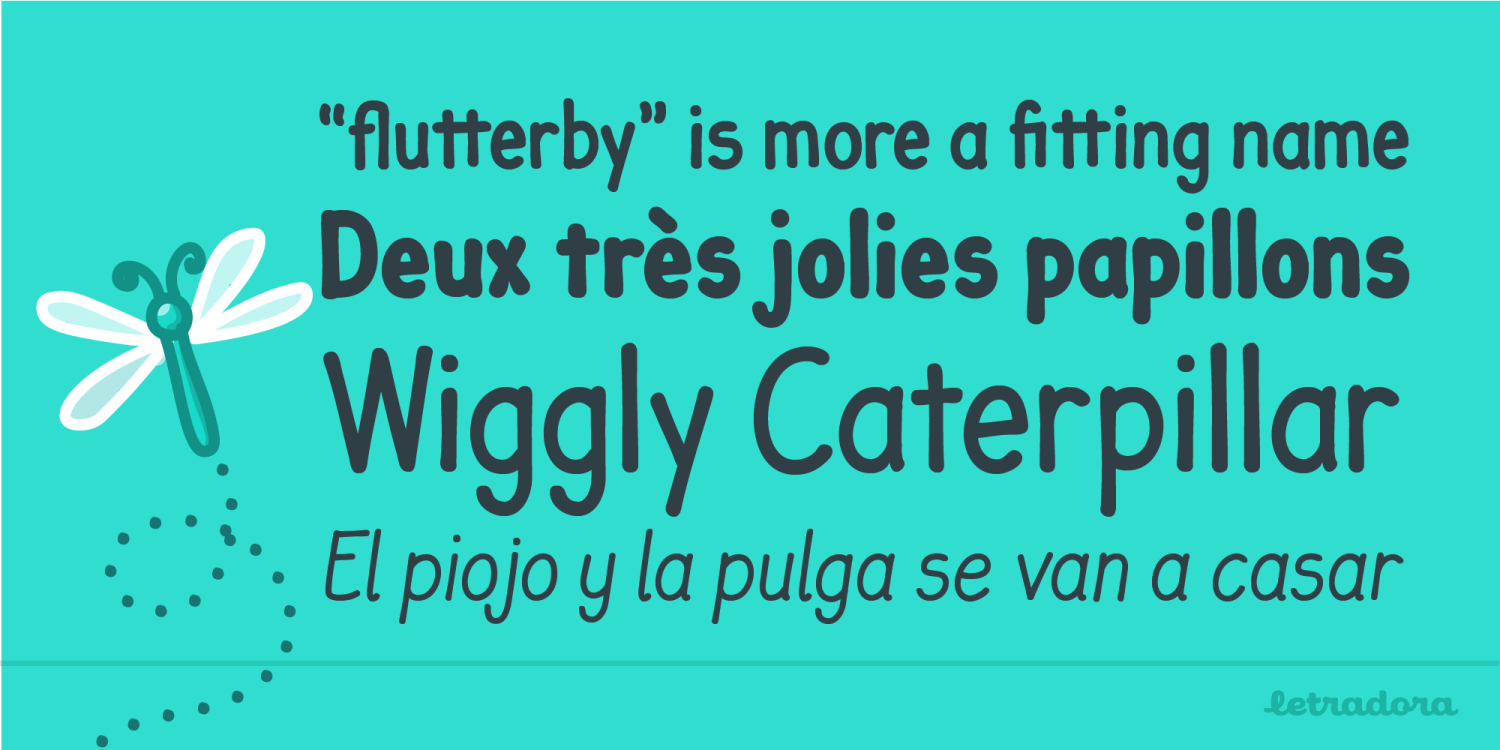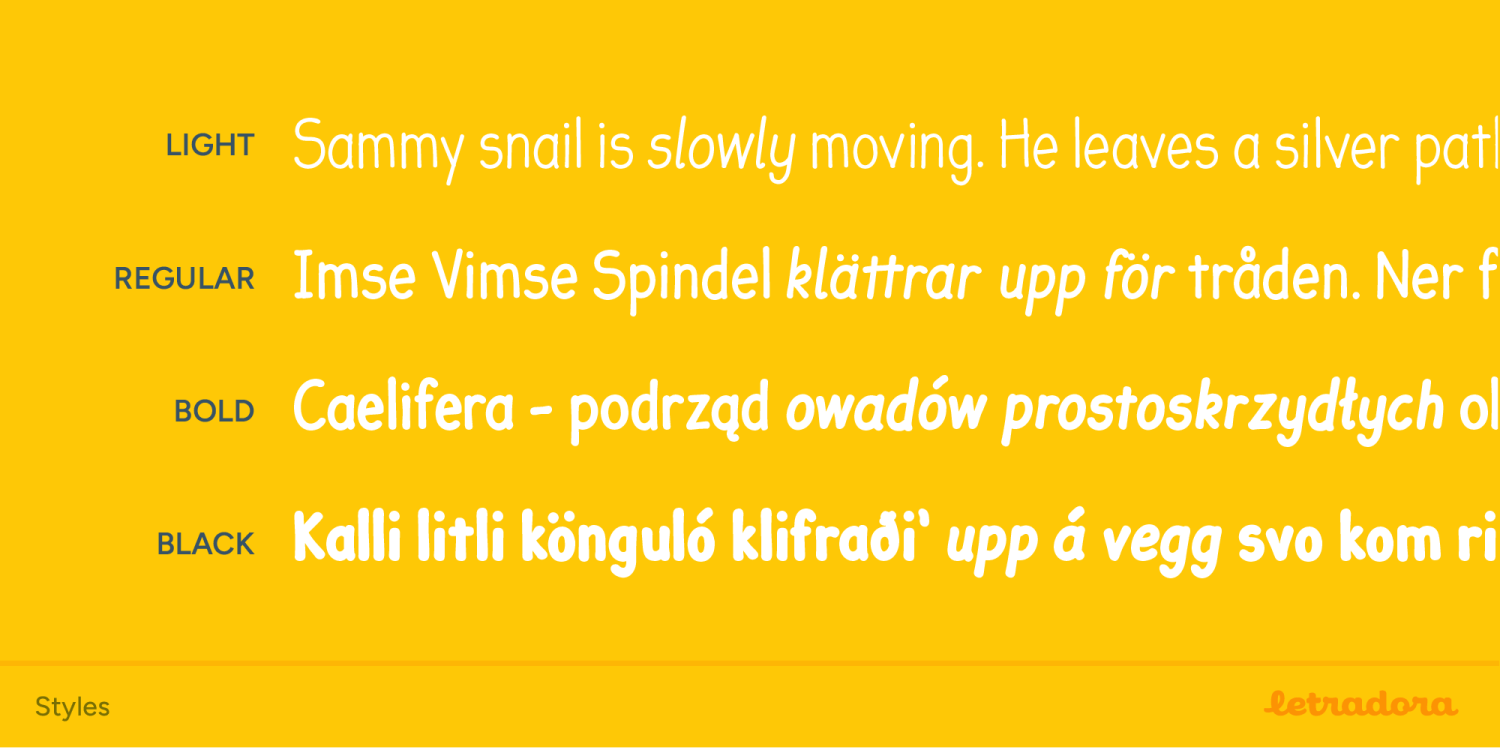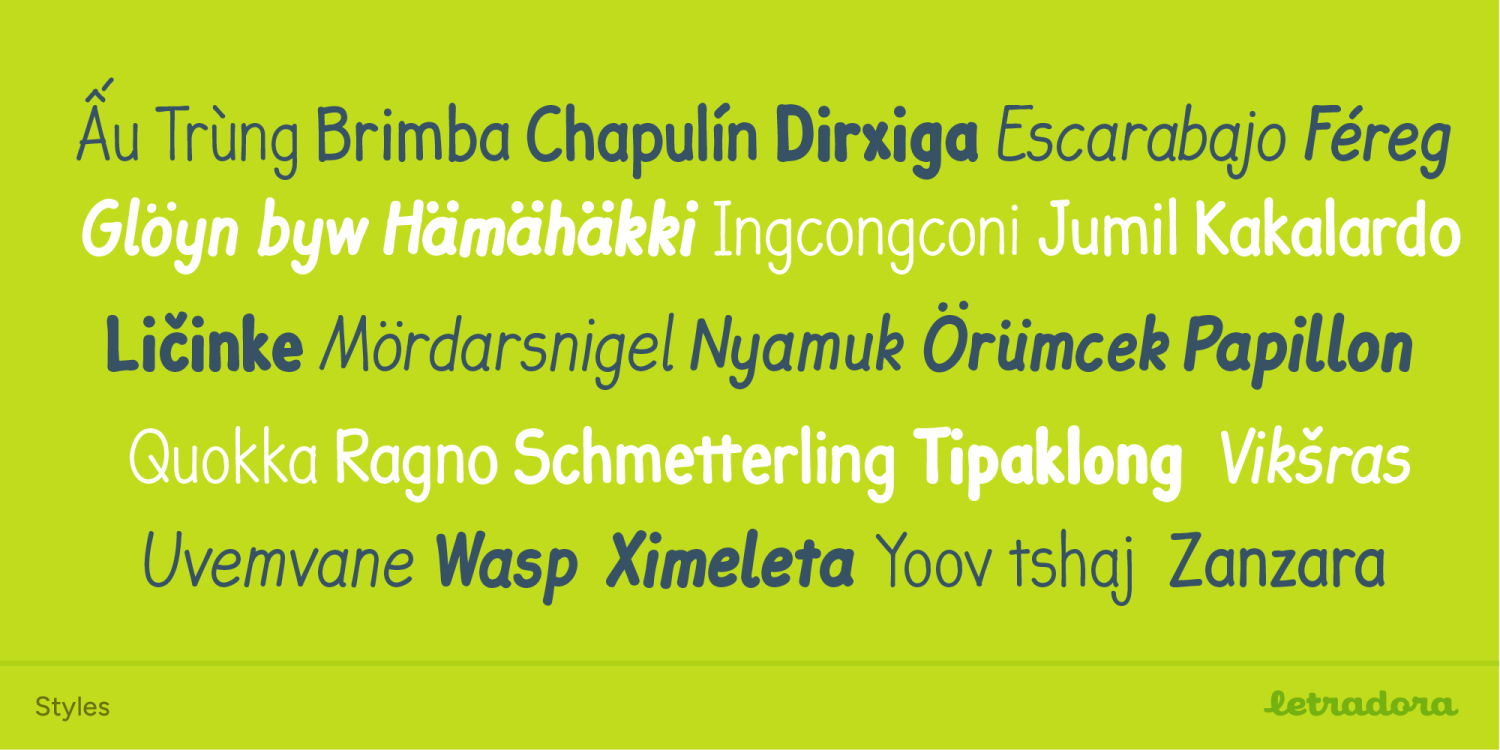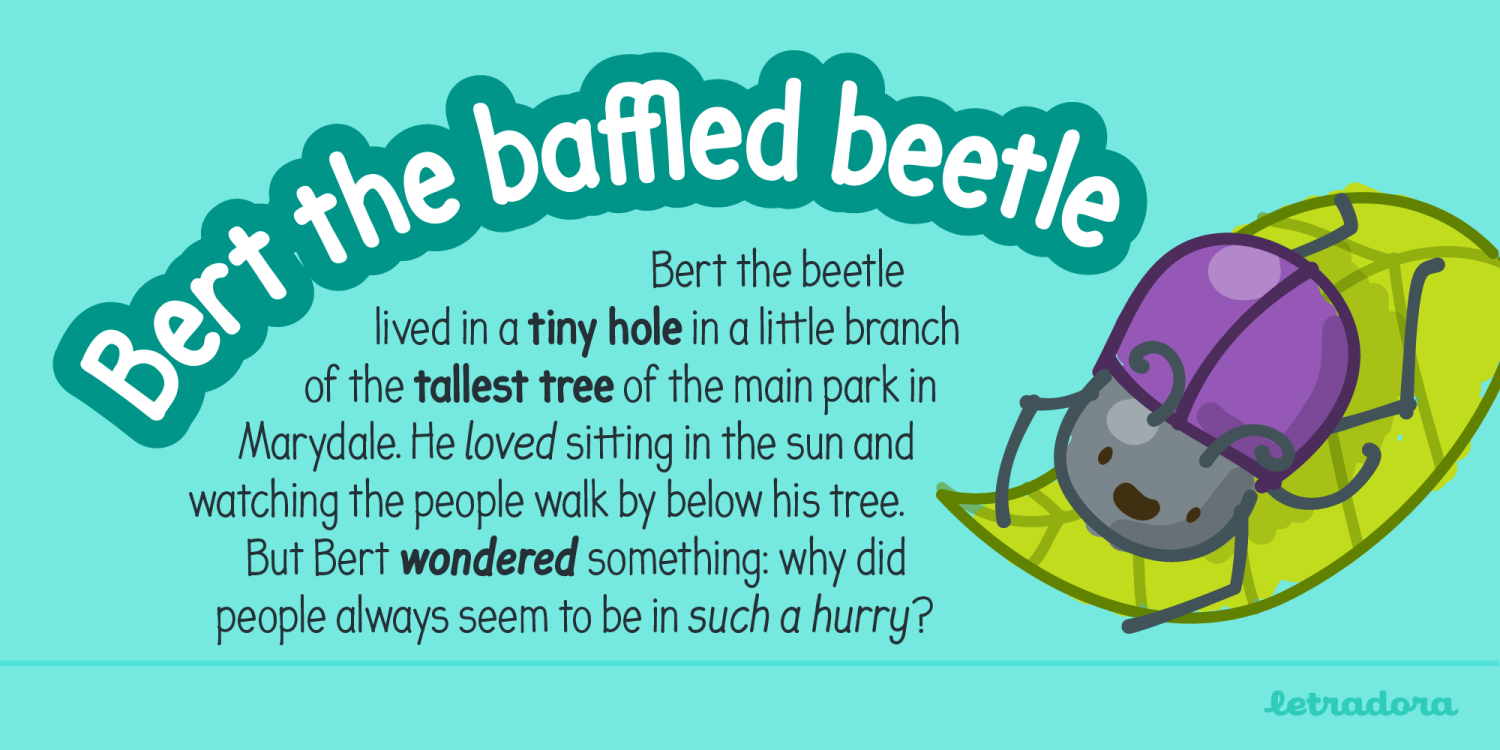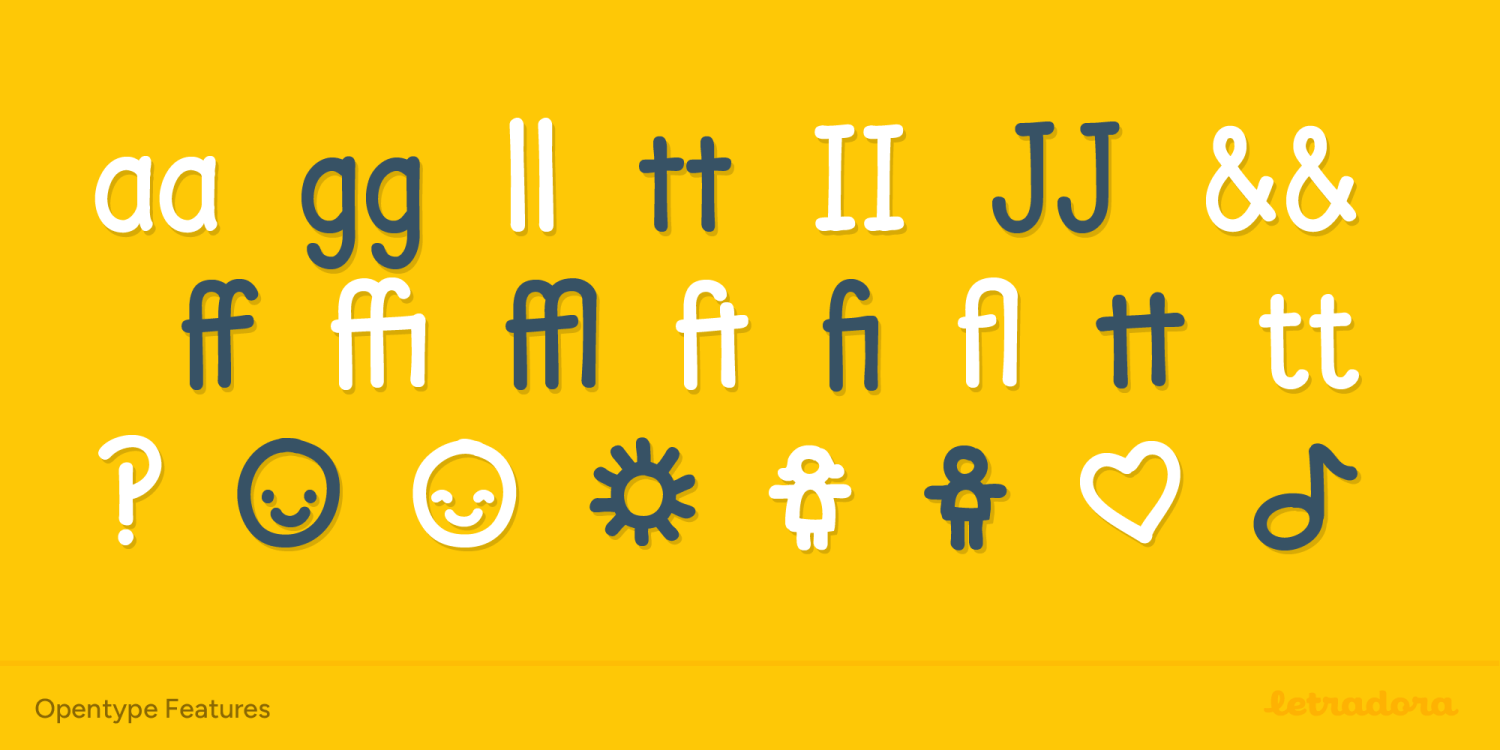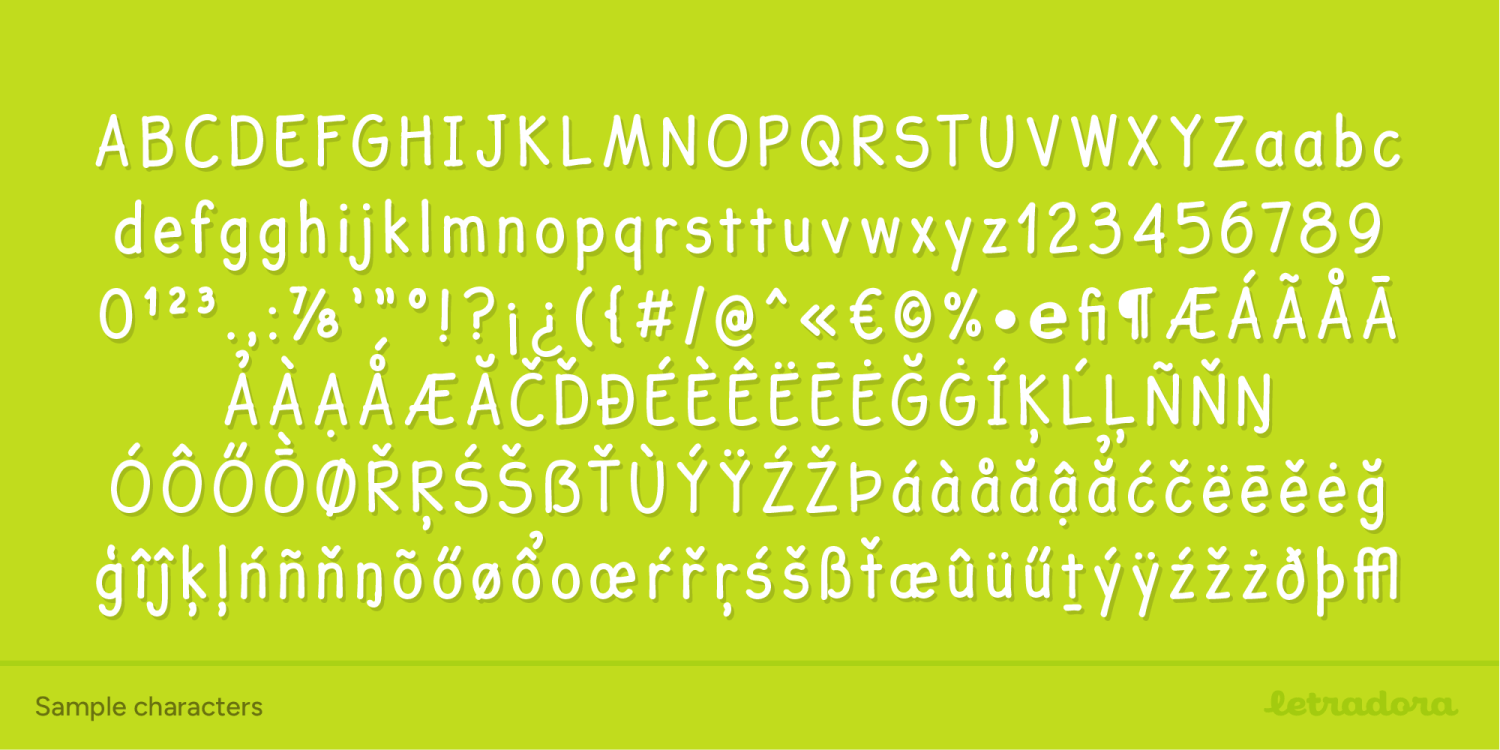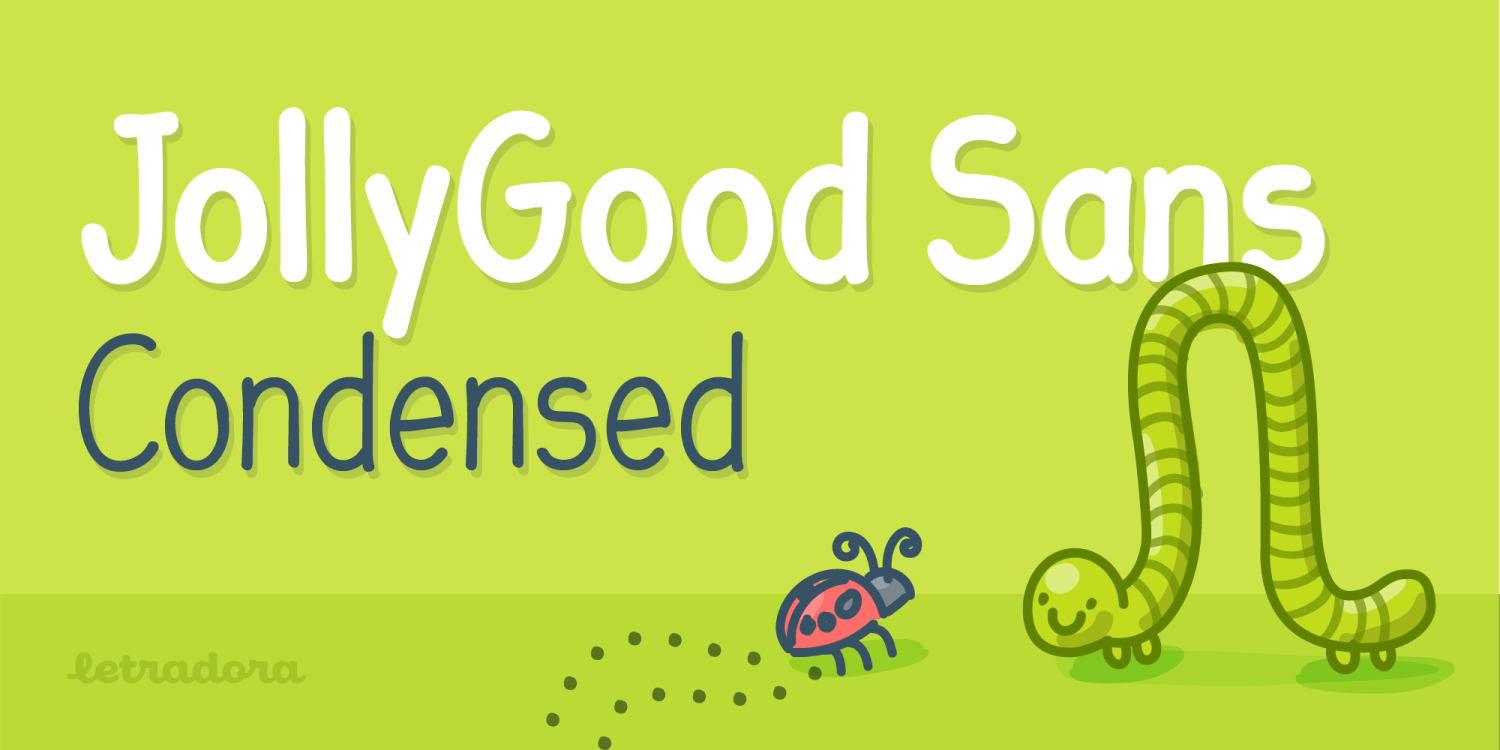
Jolly Good Sans Condensed
About Jolly Good Sans Condensed
JollyGood Sans Condensed is another member of the JollyGood family. This is a narrower comic font that allows you to fit a lot of text, while still being fun & legible. It is a complete family with 4 weights in regular and italic (8 fonts…